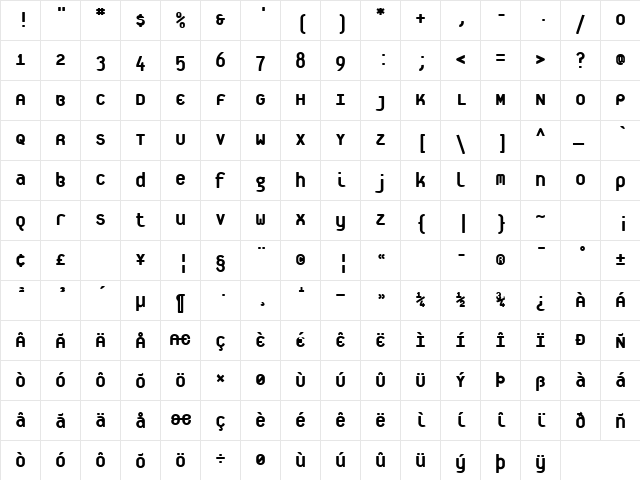
PlateletHeavy Regular
Design Context for PlateletHeavy Typeface
PlateletHeavy takes a measured approach to typography — its balanced proportions and neutral character make it a reliable workhorse for both digital and print work.